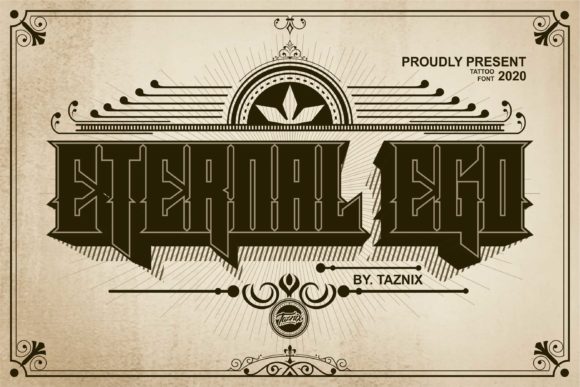
Behold the Eternal Ego Font, a masterful creation by taznixart, the visionary artist behind this distinctive blackletter typeface. Step into a realm of unparalleled aesthetics, where the fusion of vintage charm and dramatic flair ignites a symphony of visual intrigue. With its captivating presence, Eternal Ego transcends the boundaries of ordinary fonts, leaving an indelible mark on every project it graces.
Unleash your creativity and embrace the boundless potential of Eternal Ego. Its captivating glyphs dance across the page, captivating the senses with their intricate details and elegant curves. Whether you seek to craft stunning logos, eye-catching posters, or personalized invitations, Eternal Ego stands ready to elevate your designs to breathtaking heights.
Immerse yourself in the versatility of Eternal Ego. Its diverse character set empowers you to express your individuality with countless design possibilities. From bold headlines that command attention to delicate body text that whispers elegance, Eternal Ego adapts seamlessly to your every need. Its inherent charm lends itself to a myriad of applications, from modern branding to retro-inspired masterpieces.
Journey through history with Eternal Ego, a font imbued with the spirit of bygone eras. Its vintage undertones evoke a sense of nostalgia, while its contemporary touches ensure timeless appeal. Bring a touch of classic sophistication to your projects, whether you're designing for print, web, or digital media.
Indulge in the artistry of Eternal Ego, a font crafted with meticulous precision. Each letterform is a testament to the designer's dedication to excellence, ensuring impeccable quality and visual harmony. Prepare to be enthralled by the font's impeccable kerning and spacing, which orchestrate a flawless reading experience.
With Eternal Ego at your fingertips, unlock a world of creative possibilities. Its versatility extends beyond traditional design realms, making it an ideal choice for crafting captivating social media graphics, eye-catching website headers, and unforgettable product packaging. Let your imagination soar and witness the transformative power of Eternal Ego.